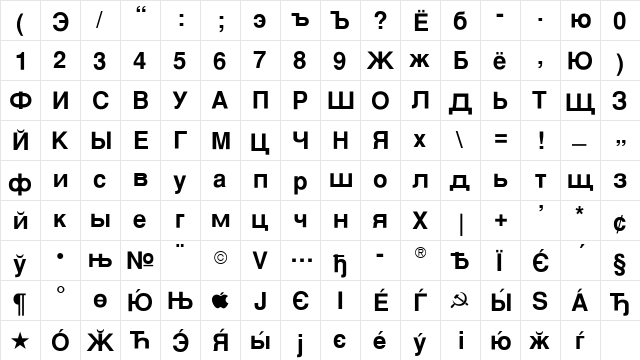
SvobodaFLF-Bold Regular
Design Context for SvobodaFLF-Bold Typeface
SvobodaFLF-Bold offers clean, dependable letterforms without strong stylistic allegiance, making it a practical choice for designers who need flexibility. Its bold stroke weight gives it real presence on the page.